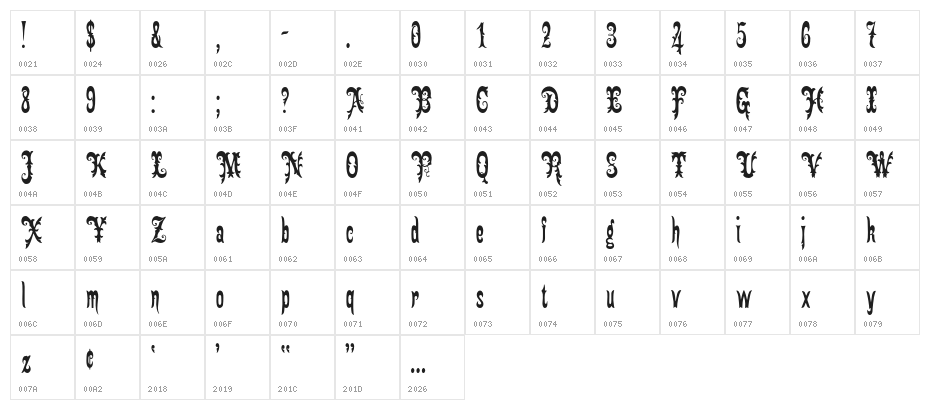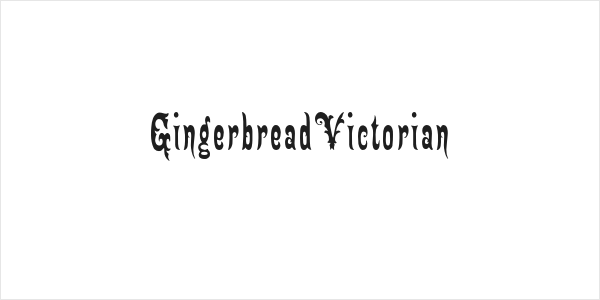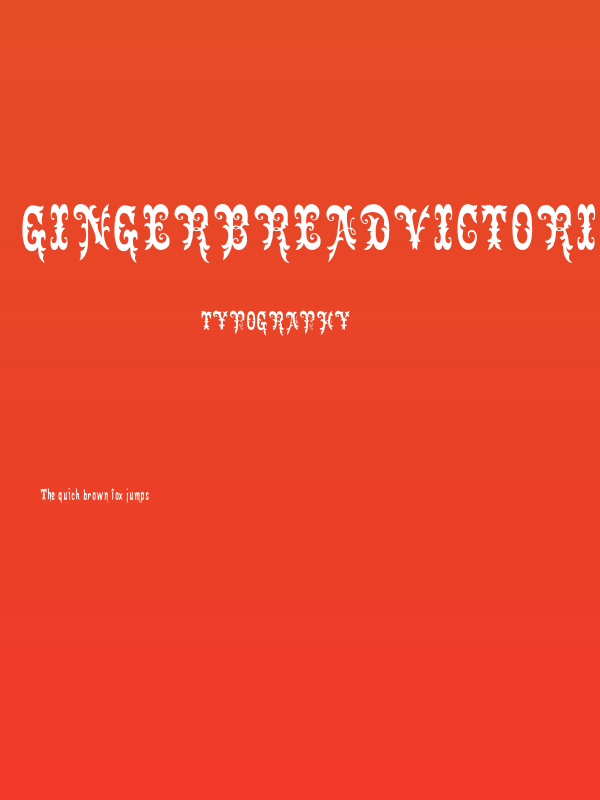
GingerbreadVictorian Font
| Caso de uso | Headlines, Logos, Decorative text |
| Projetos propostos | Ideal for vintage-themed posters, invitations, book covers, and branding that requires a historical or whimsical touch. |